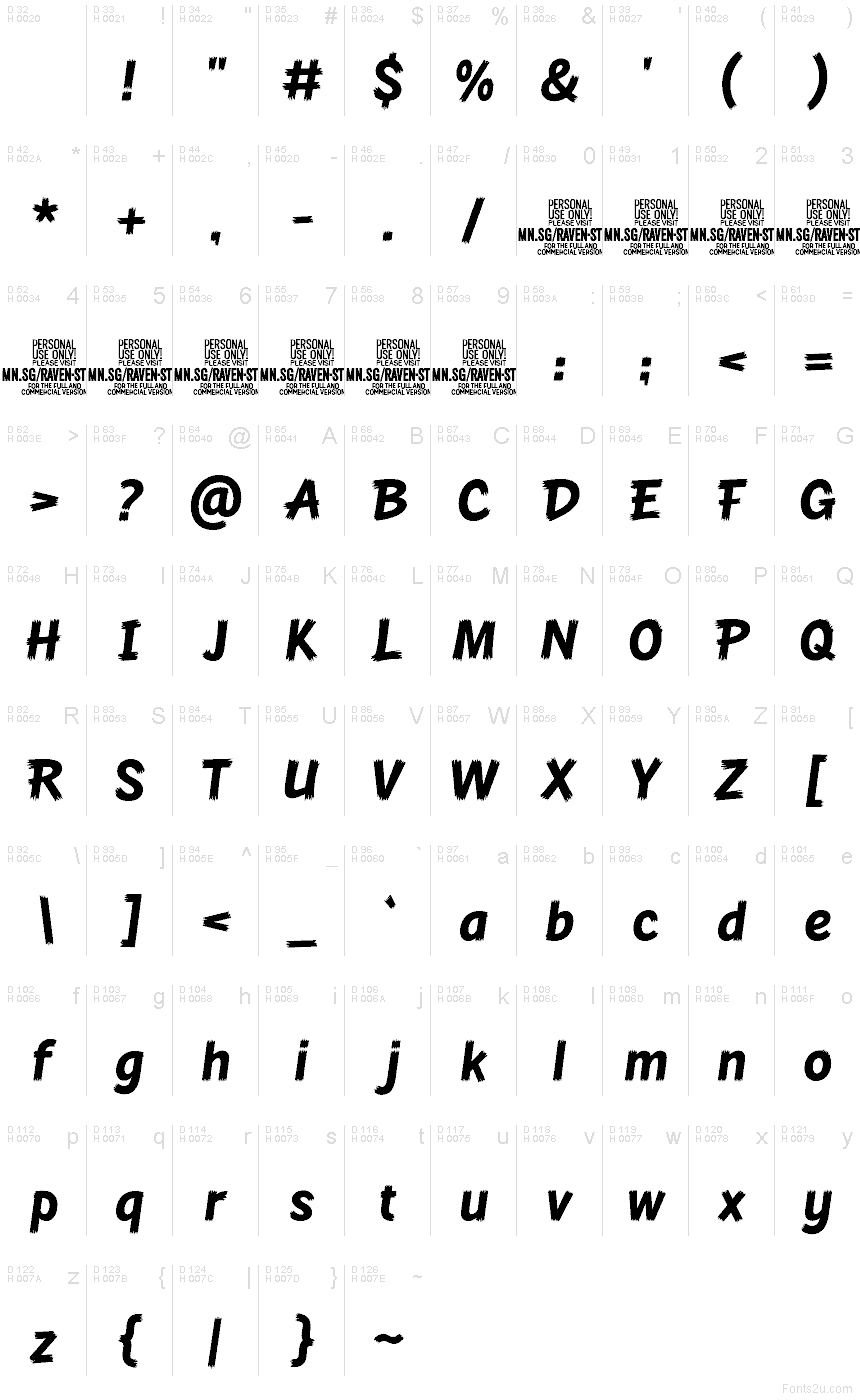
Raven Storm PERSONAL USE Regular
Raven Storm font by Mans Greback is a free brush display font. Its defining trait is the torn, bristled edges that look like paint dragged fast across paper—windblown, gritty, and full of motion. The forward slant and heavy strokes create instant impact without losing legibility, giving headlines that electrified, mid‑splash energy.
Using Raven Storm, you get bold, kinetic type that shines on poster headlines, game covers, extreme sports graphics, energy drink packaging, horror titles, event flyers, and YouTube thumbnails. This free font delivers a rough, inky rhythm that reads loud at a glance and holds up at distance. Pair it with a clean geometric sans and keep body copy small and neutral to let the brushwork roar.
Raven Storm is a bold display typeface.